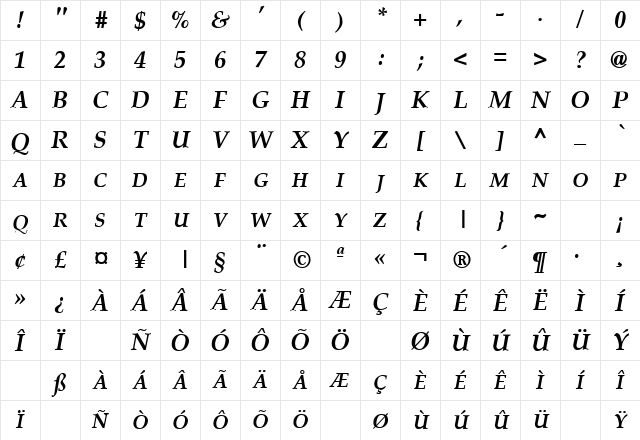
PalatineExpert Bold-Italic
Style: Bold-Italic
PalatineExpert Family
Design Context for PalatineExpert
PalatineExpert is a composed and adaptable typeface that performs quietly and consistently across a wide range of design contexts. The slanted form adds forward momentum and visual energy. Its bold stroke weight gives it real presence on the page.
Pro Tip: Use PalatineExpert for emphasis, pull quotes, and subheadings where its slanted energy can add rhythm to the layout.